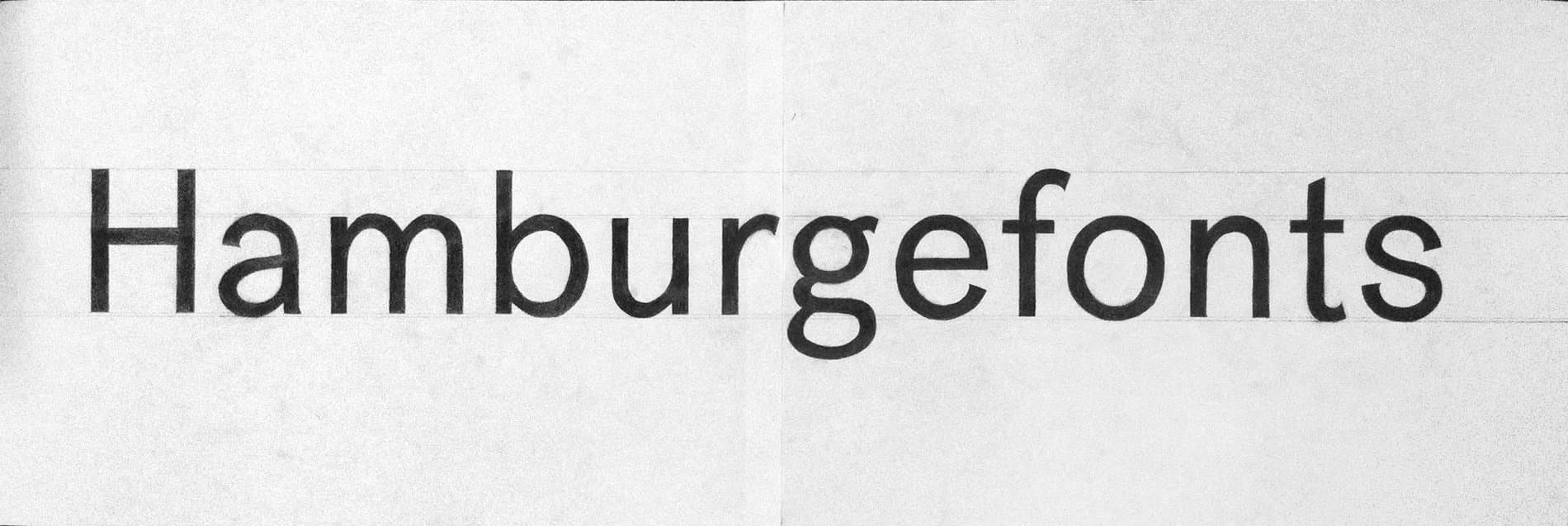
About Post Grotesk
Josh Finklea began work on Post Grotesk in 2011 with the goal of designing a contemporary version of the traditional grotesk sans-serif for his own use. The intention was to build an amiable typeface with maximum usability and an overall sense of neutrality.
Post Grotesk Construction
Finklea is a graphic designer whose work emphasizes restraint, rationality, and functionality. Post Grotesk is a careful and conservative study of the typographic genre he found himself using most frequently in his own work, incorporating his own sensibilities and refined aesthetic, as well as addressing common issues found when working with the standard faces of the grotesk and neo-grotesk genres.
Post Grotesk is informed largely by the rational tone of the more systematic grotesks, while leaning into the looseness of the less structural examples of the genre. Berthold's Akzidenz-Grotesk and Bauer's Venus were both inspirations for the amount of wonky "grotesqueness" that seemed both usable and unique. The flared terminals seen in Venus became an integral characteristic of the design of Post.
“Even though I tend to lean towards restraint and minimalism, I kept running into instances where classic sans serifs like Akzidenz, Univers, Helvetica, Monotype Grotesque, and Franklin Gothic all felt too clinical and clean shaven for my work.” Says Finklea. “I tried my best to dissect and identify some of the characteristics that made a grotesk lean more towards cleanliness and rationality on one end, and irregularity and peculiarity on the other.”
In every aspect of the design, the choice of either observing traditional models or making a finely-calculated divergence was agonized over.
An important characteristic of this dichotomy is the recurrence of terminal angles—the most clinical and rigid being the horizontal terminals such as those in Helvetica, with the more unique and lively end of the spectrum being the sheared variety with less consistent terminal angles.
As a graphic designer, Finklea found that he rarely used the lighter weights in most grotesks, as the interior space of the characters often felt too open and the width often felt too wide. While it can look elegant at display sizes, these lighter weights always stuck out to Finklea as looking “a bit strange” in body copy.
“I think others may consciously or subconsciously feel this way too as I mostly see Regular/Book to Bold weights in the classic grotesk/neo-grotesk fonts. I wanted to make sure that Post Grotesk Light and Thin maintained negative space in proportion to the other weights so that it could easily be used for text. The Light and Thin have actually become my favorite weights.”
The Post Grotesk Family
6 weights, 12 total fonts.
In 2015, Finklea was commissioned by Pentagram to create a custom Black weight for Mia, the Minneapolis Institute of Art. This new weight became the impetus for the expansion of the retail version of the family. In addition to many subtle refinements to the design of the original 4 weights, this newest release of Post Grotesk bookends the weight range of the family, including 4 new styles: Black, Black Italic, Thin, and Thin Italic.